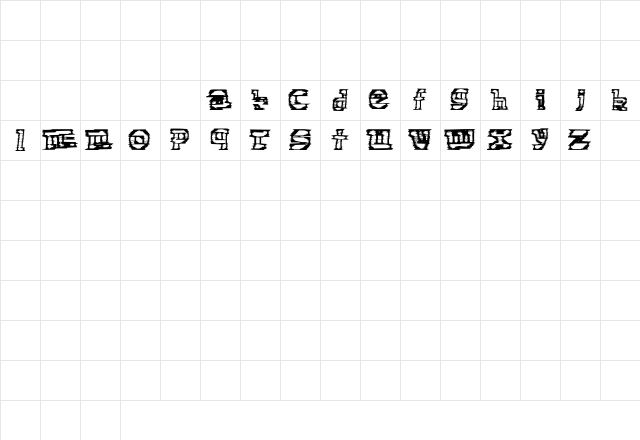
Electronic Cobbler Regular Free Font
Electronic Cobbler Regular
Design Context for Electronic Cobbler
Electronic Cobbler is a composed and adaptable typeface that performs quietly and consistently across a wide range of design contexts.